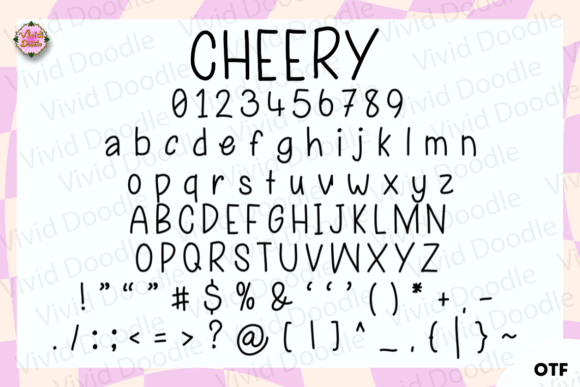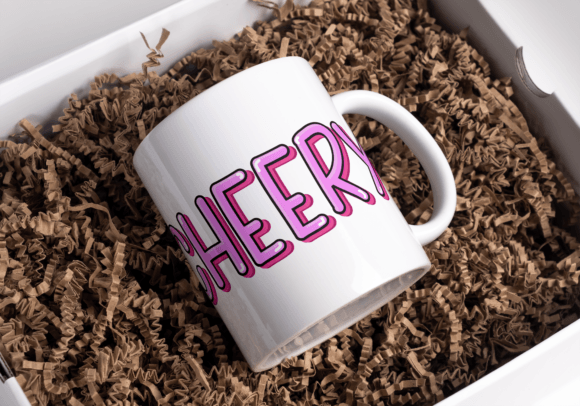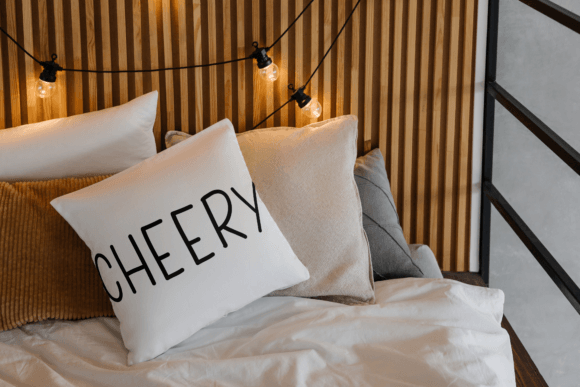
Introducing Cheery Font: Spread Festive Cheer with this Hand-Lettered Holiday Delight
It’s the most wonderful time of the year! As the holiday season approaches, designers and crafters are on the lookout for unique and festive elements to add a touch of magic to their projects. We’re thrilled to introduce Cheery Font, a newly crafted, hand-lettered font that’s specifically designed to bring joy and festivity to your creations.
What is Cheery Font?
Cheery Font is a carefully crafted, hand-lettered font that embodies the warmth and joy of the holiday season. This enchanting font is perfect for designers, crafters, and anyone looking to add a dash of festive cheer to their projects. Whether you’re working on holiday cards, gift tags, social media graphics, or any other creative endeavor, Cheery Font is sure to delight.
Unique Features of Cheery Font
So, what sets Cheery Font apart from other fonts? Here are some of its unique features:
- Hand-lettered with love: Each letter has been carefully crafted by hand, giving Cheery Font a personal and whimsical touch.
- Festive and fun: Cheery Font is designed to evoke the joy and merriment of the holiday season, making it perfect for any festive project.
- Adaptable and versatile: While Cheery Font is specifically designed for the holiday season, its enchanting style makes it suitable for any project that needs a touch of warmth and personality.
- Exclusive and unique: Cheery Font is a one-of-a-kind font that’s sure to make your projects stand out from the crowd.
How to Use Cheery Font
Cheery Font is incredibly easy to use and can be incorporated into a wide range of projects, including:
- Holiday cards and invitations: Add a personal touch to your holiday cards and invitations with Cheery Font.
- Gift tags and wrapping: Use Cheery Font to create beautiful and unique gift tags and wrapping designs.
- Social media graphics: Add some festive cheer to your social media graphics, such as holiday-themed Facebook posts and Instagram stories.
- Digital and print projects: Cheery Font can be used in a variety of digital and print projects, including brochures, flyers, and more.
Why Choose Cheery Font?
With so many fonts available, why choose Cheery Font? Here are just a few reasons:
- Save time: With Cheery Font, you can quickly and easily add a touch of festive cheer to your projects, saving you time and effort.
- Stand out from the crowd: Cheery Font is a unique and exclusive font that’s sure to make your projects stand out from the crowd.
- Easy to use: Cheery Font is incredibly easy to use, even for those with limited design experience.
Get Ready to Experience the Merriment of the Season
Don’t miss out on the opportunity to add some festive cheer to your projects with Cheery Font. This enchanting font is sure to bring joy and warmth to your creations, making it the perfect addition to any holiday project. So why wait? Get ready to experience the merriment of the season with Cheery Font!
In conclusion, Cheery Font is a unique and exclusive hand-lettered font that’s specifically designed to bring festive cheer to your projects. With its adaptable and versatile style, Cheery Font is perfect for designers, crafters, and anyone looking to add a touch of warmth and personality to their creations. So why wait? Download Cheery Font today and get ready to spread some holiday cheer!